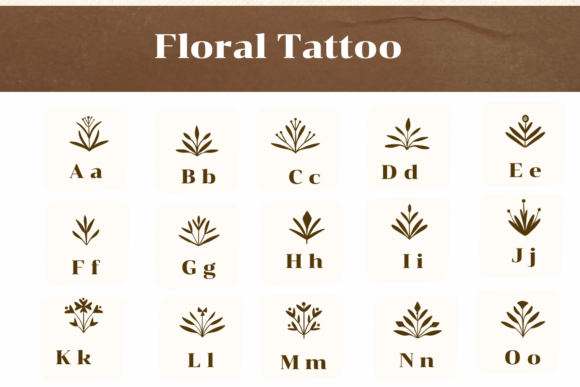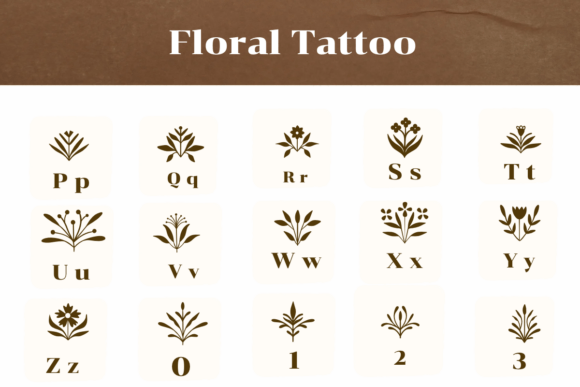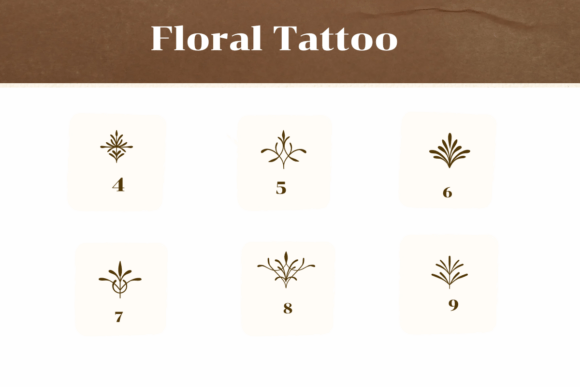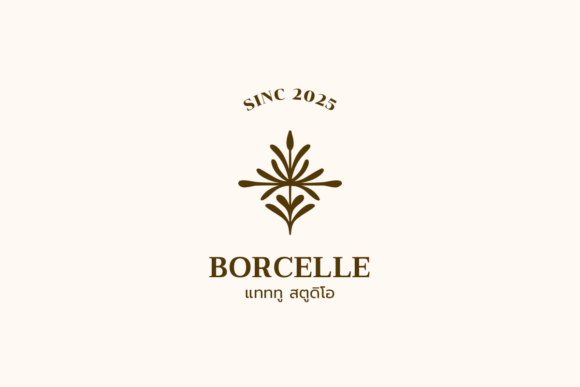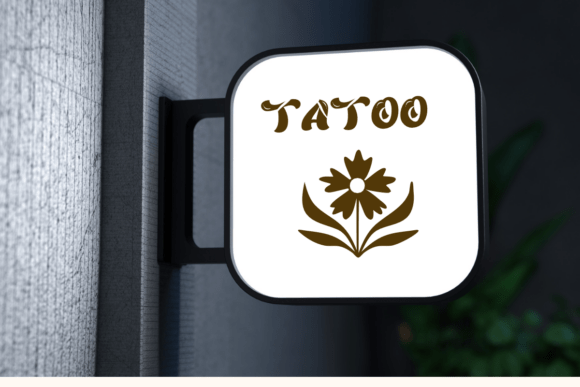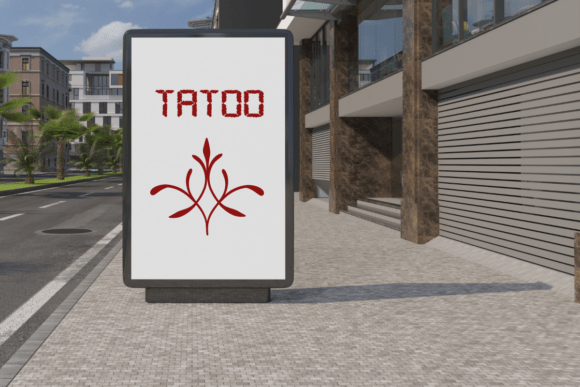
Elevate Your Designs with the Delicate Charm of Floral Tattoo Font
In the world of design, fonts play a pivotal role in conveying messages, evoking emotions, and adding aesthetic appeal to projects. Among the myriad of font styles available, dingbats fonts hold a special place for their unique and often decorative designs. One such font that has captured the hearts of designers and crafters alike is the Floral Tattoo Font. This charming dingbats font is a treasure trove of beautifully illustrated floral icons, designed to bring a touch of elegance and earthy charm to a wide range of creative projects.
What is Floral Tattoo Font?
Floral Tattoo Font is a meticulously crafted dingbats font that boasts an exquisite collection of symmetrical, tattoo-style botanical designs. These are not just any ordinary characters; they are beautifully illustrated floral icons that can add a unique and personal touch to various design projects. The font’s inspiration draws from traditional tattoo art, combined with the delicate and intricate details of botanical illustrations, making it a standout choice for projects that require a blend of elegance and edginess.
Key Features of Floral Tattoo Font
- Symmetrical Botanical Designs: Each glyph in the Floral Tattoo Font is carefully designed to offer symmetrical, tattoo-style floral motifs. This symmetry ensures that the designs are visually appealing and can be used as standalone elements or integrated into more complex compositions.
- Versatility: The font is incredibly versatile, making it suitable for a variety of applications, from crafting and wedding stationery to tattoo design mockups, logos, and decorative accents.
- Easily Scalable and Adaptable: One of the significant advantages of Floral Tattoo Font is its scalability. The glyphs maintain their integrity and aesthetic appeal whether scaled up or down, making them adaptable for use in different projects and on various platforms.
- Elegance and Earthy Charm: The font brings a perfect balance of elegance and earthy charm to designs. The floral icons are not just decorative; they also carry a sense of nature and organic beauty, which can make designs stand out.
Applications of Floral Tattoo Font
The applications of Floral Tattoo Font are vast and varied. Here are some of the most popular uses:
- Crafting: Whether you’re creating handmade cards, scrapbooking, or engaging in other craft projects, Floral Tattoo Font can add a personalized and artistic touch.
- Wedding Stationery: The elegant and charming designs of this font make it an excellent choice for wedding invitations, save-the-date cards, and other wedding-related stationery.
- Tattoo Design Mockups: For tattoo artists and designers, this font offers a quick and creative way to mock up tattoo designs or to add floral elements to existing designs.
- Logos and Branding: The unique and memorable glyphs can be used to create distinctive logos and branding elements, especially for businesses in the beauty, wellness, and lifestyle sectors.
- Decorative Accents: Beyond specific projects, the floral icons can be used as decorative accents on websites, social media graphics, and digital art, adding a touch of personality and style.
Tips for Using Floral Tattoo Font
To make the most of Floral Tattoo Font, consider the following tips:
- Mix and Match: Don’t be afraid to combine different glyphs to create unique compositions. The symmetry and variety of designs allow for endless combinations.
- Experiment with Colors: While the font’s natural charm lies in its black and white designs, experimenting with colors can add a new dimension to your projects.
- Pair with Other Fonts: For added contrast and visual interest, consider pairing Floral Tattoo Font with other fonts. A simple sans serif or script font can create a beautiful balance.
| Font Name | Floral Tattoo Font |
| Author | Apiwat Type |
Floral Tattoo Font is more than just a dingbats font; it’s a creative tool that can elevate a wide range of design projects. Its unique blend of symmetrical, tattoo-style botanical designs offers a fresh and distinctive aesthetic that can appeal to designers, crafters, and businesses alike. Whether you’re looking to add a touch of elegance, earthy charm, or personalization to your projects, Floral Tattoo Font is an excellent choice. With its versatility, scalability, and the endless creative possibilities it offers, this font is sure to become a favorite in your design arsenal.